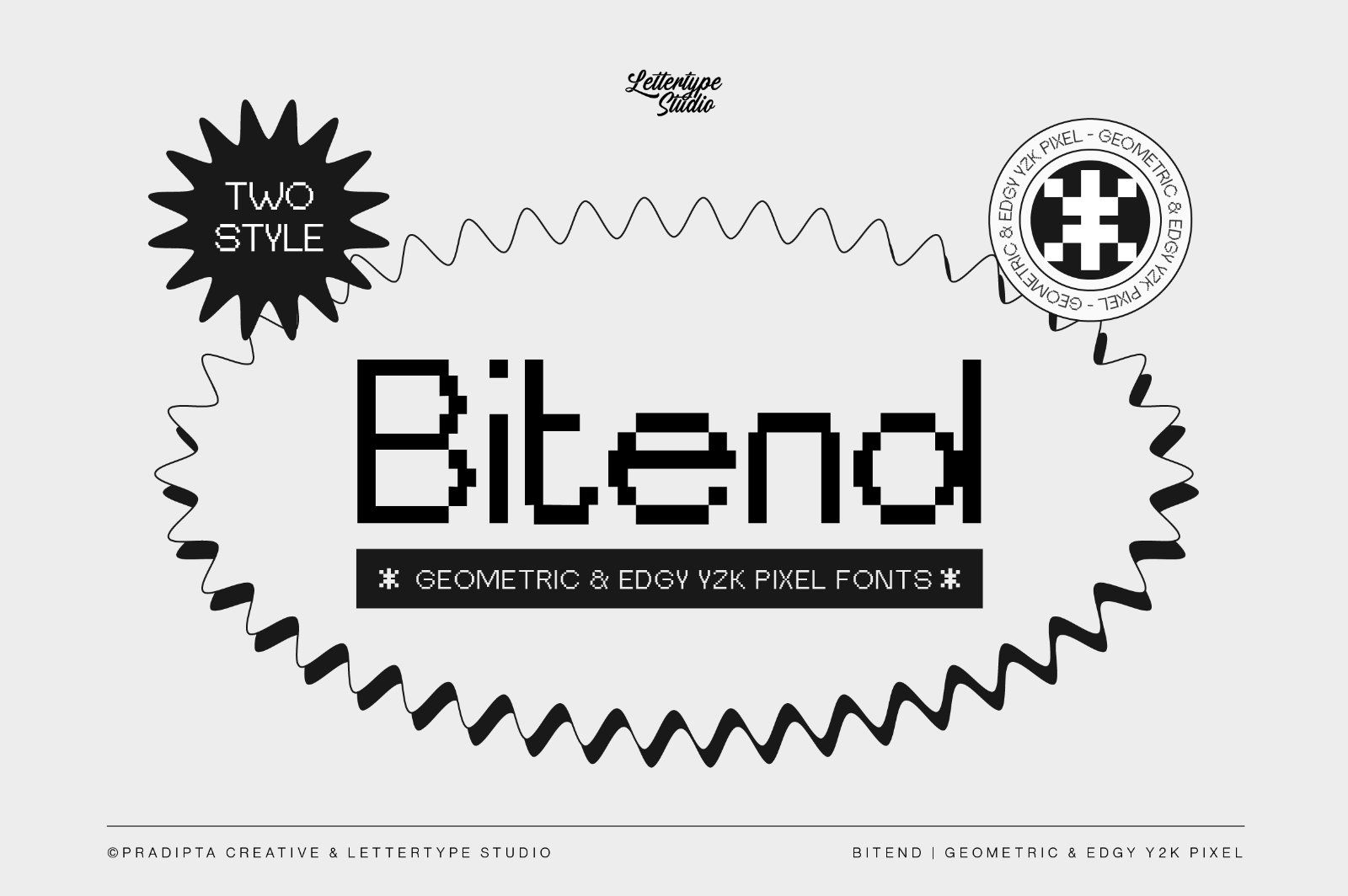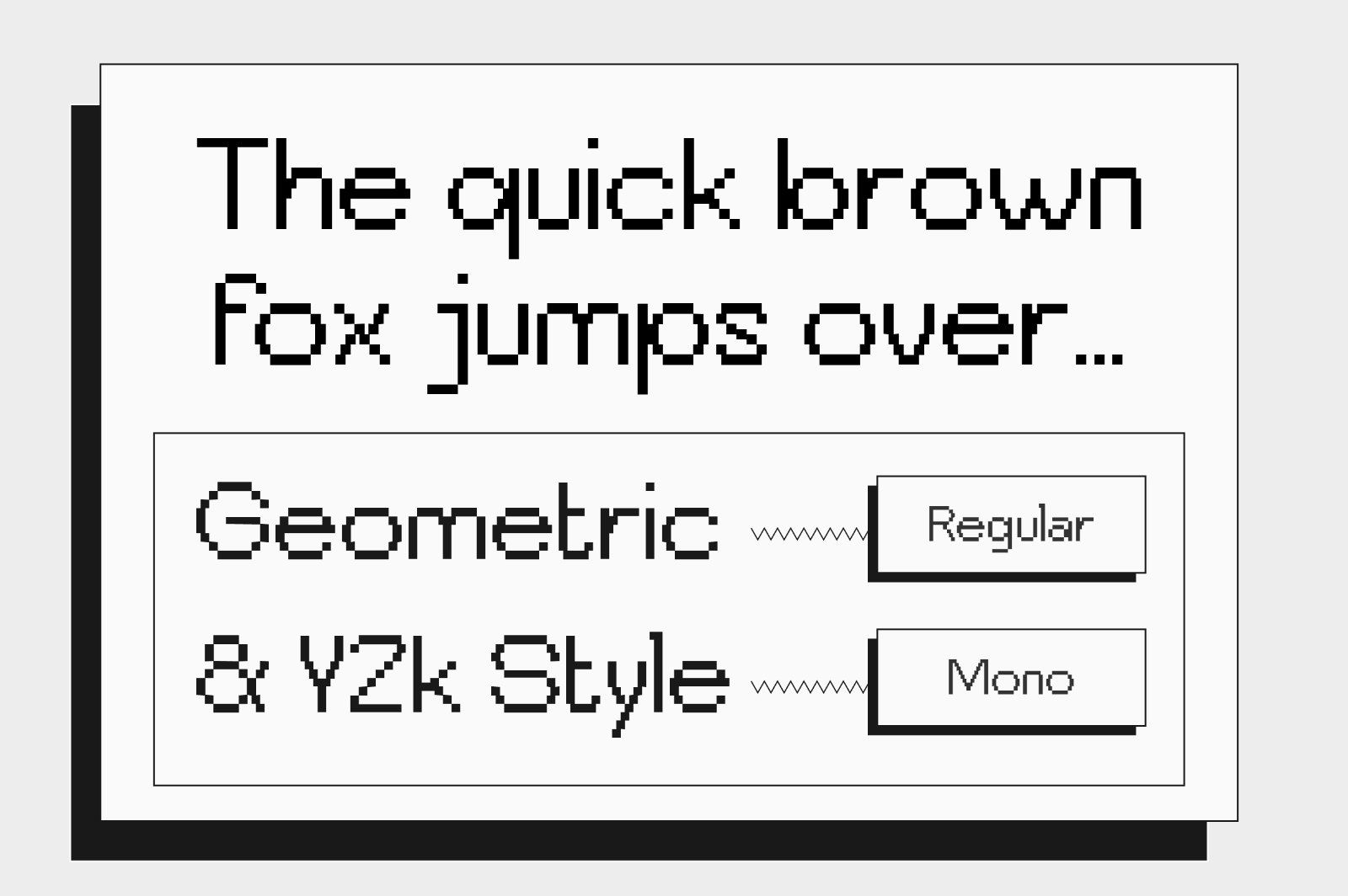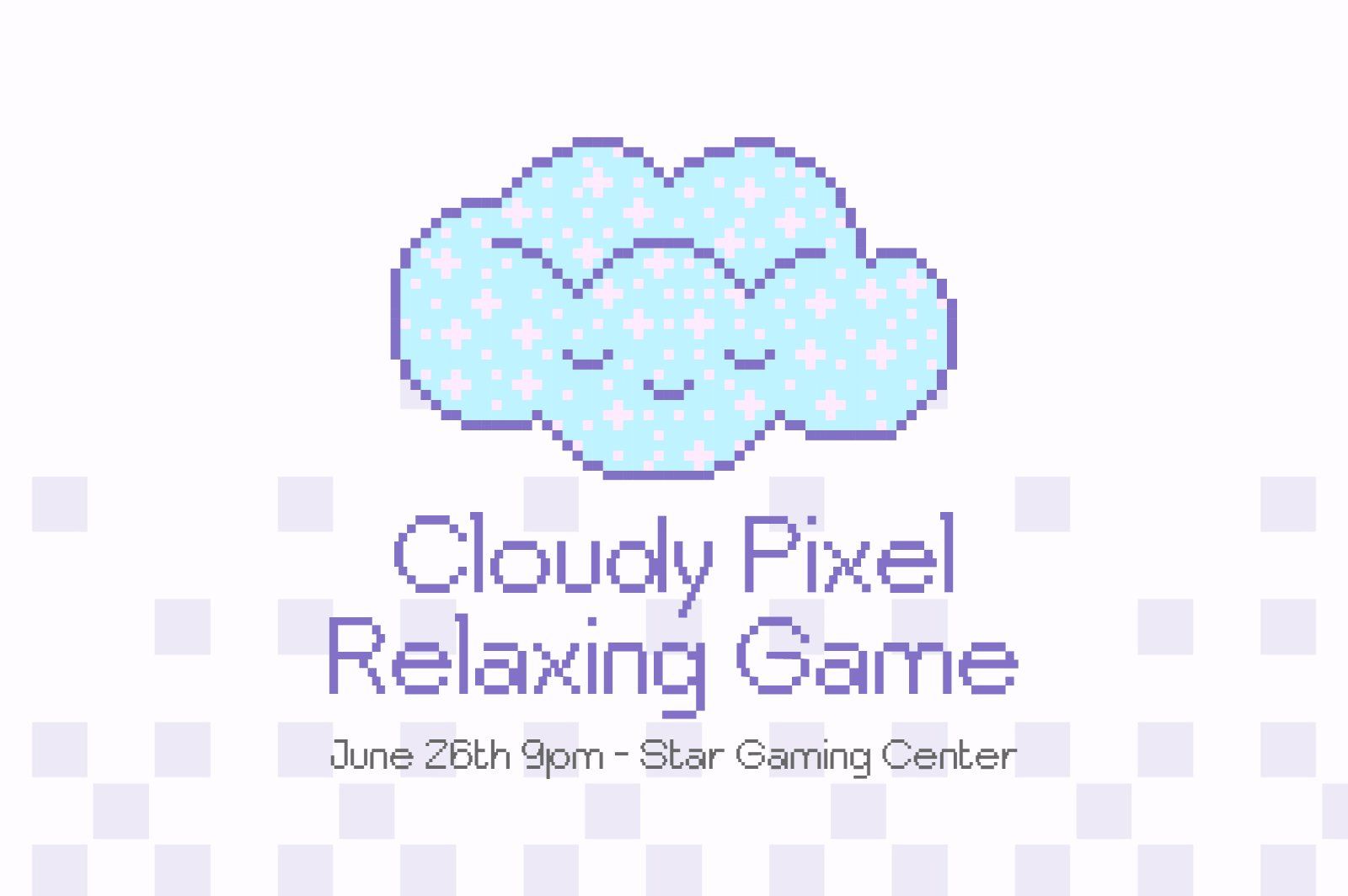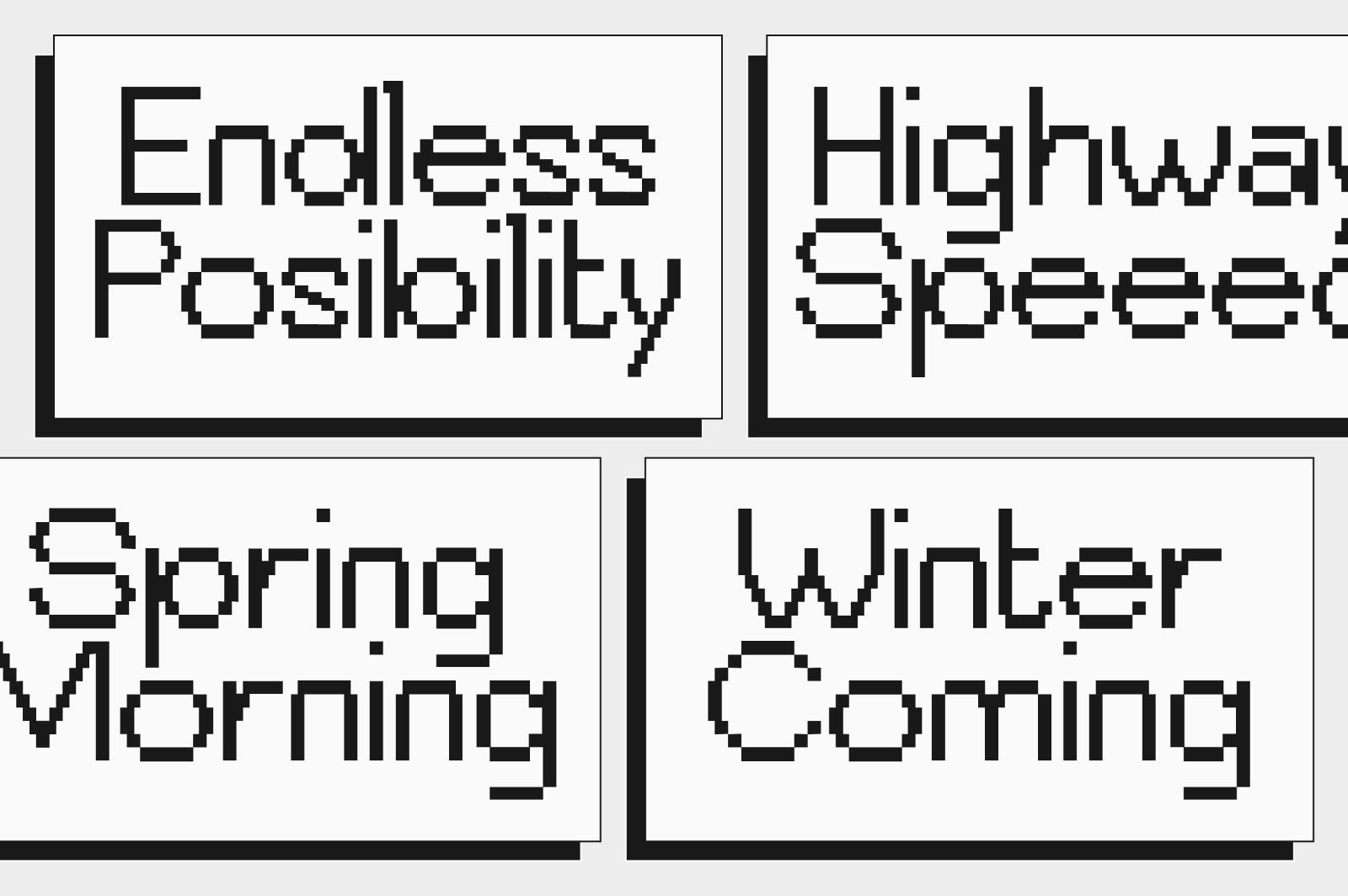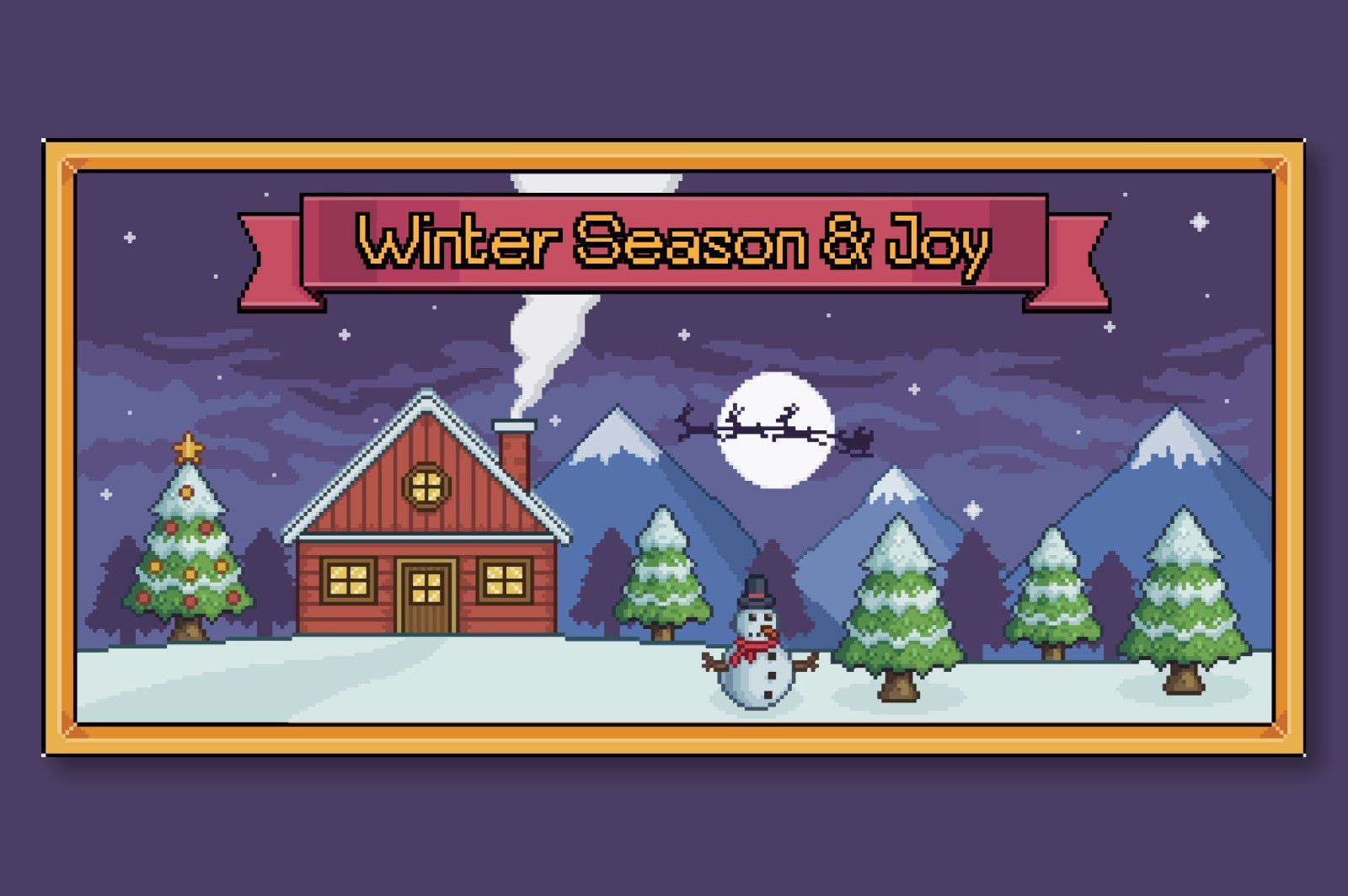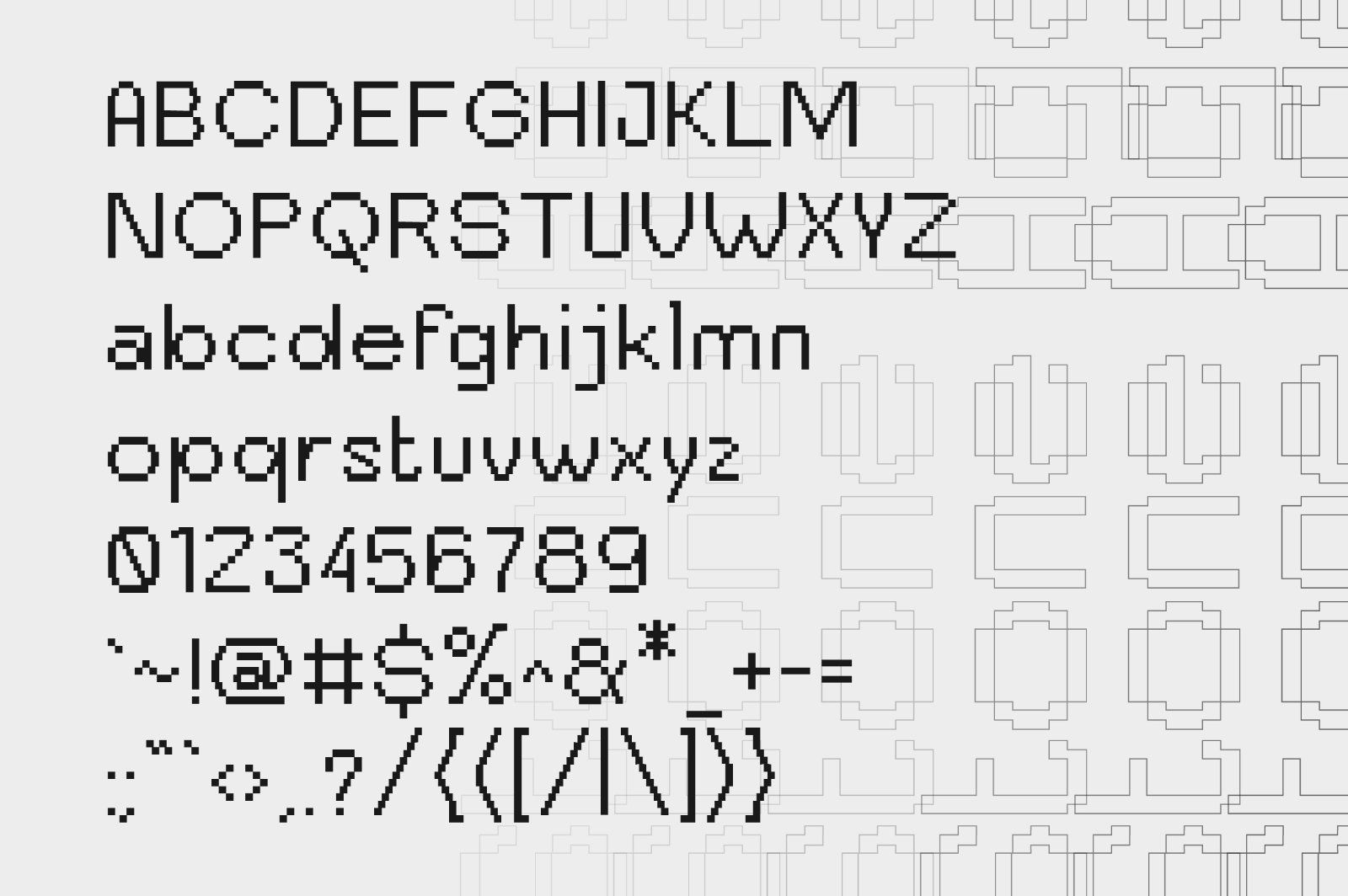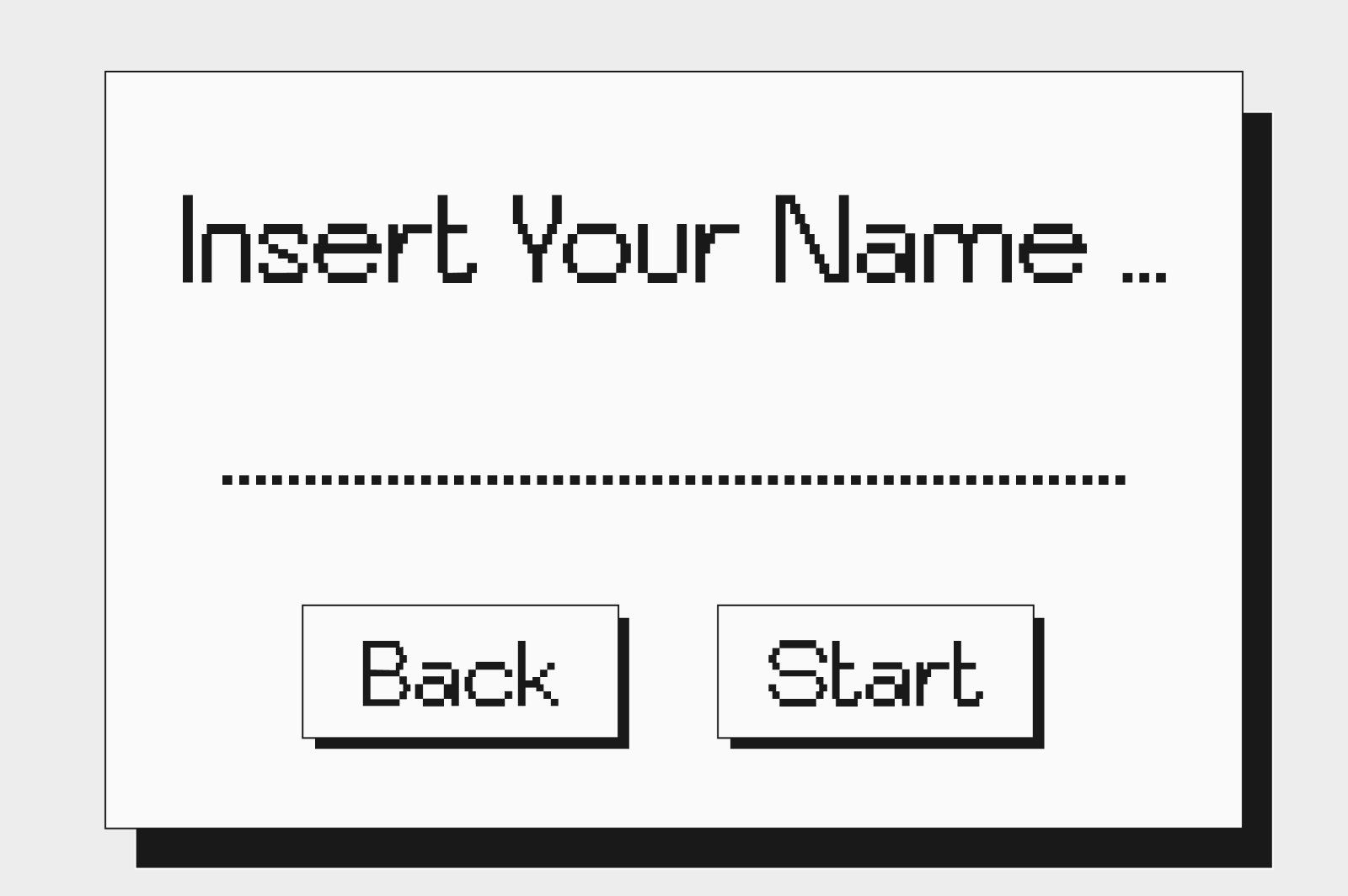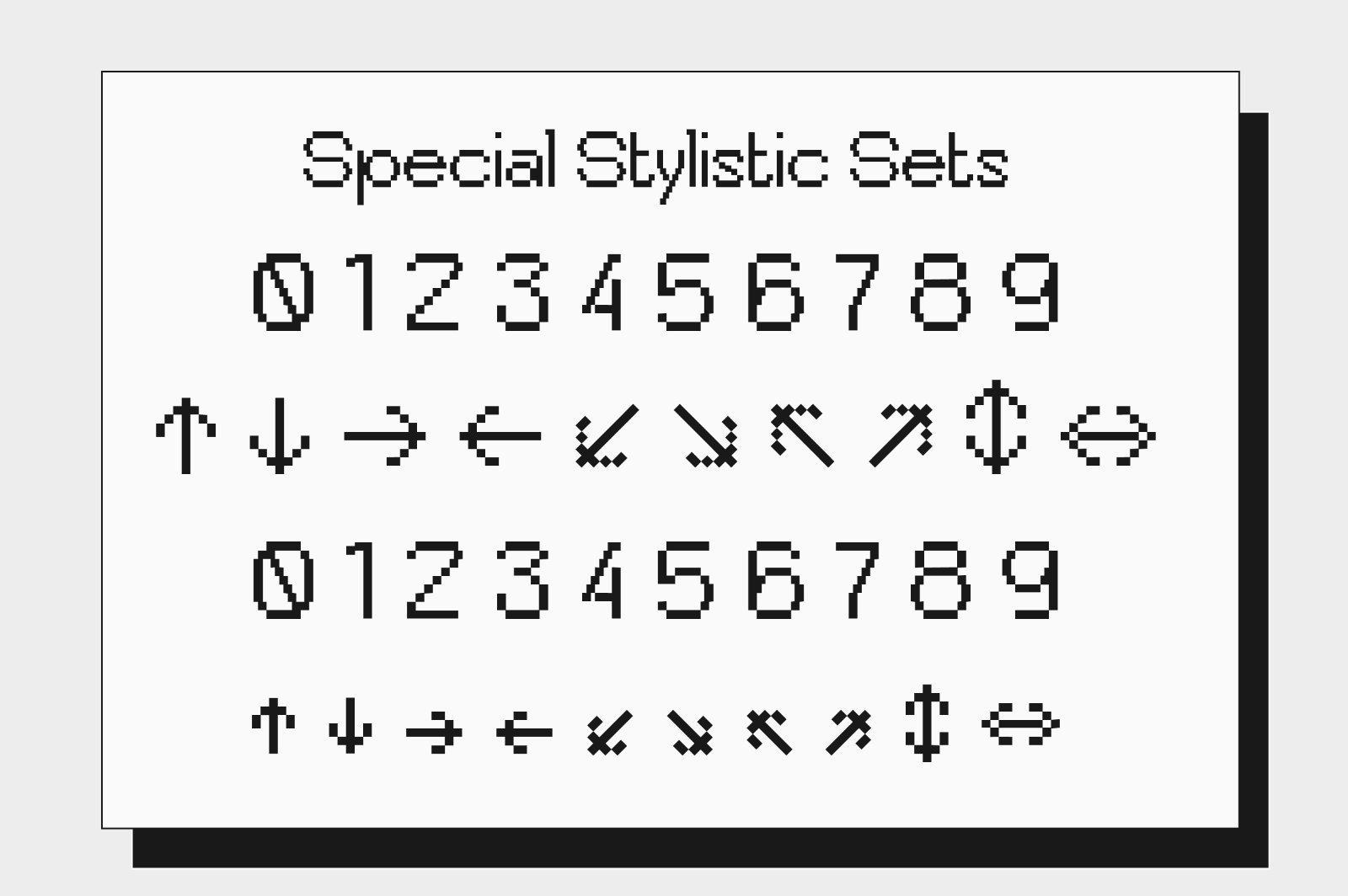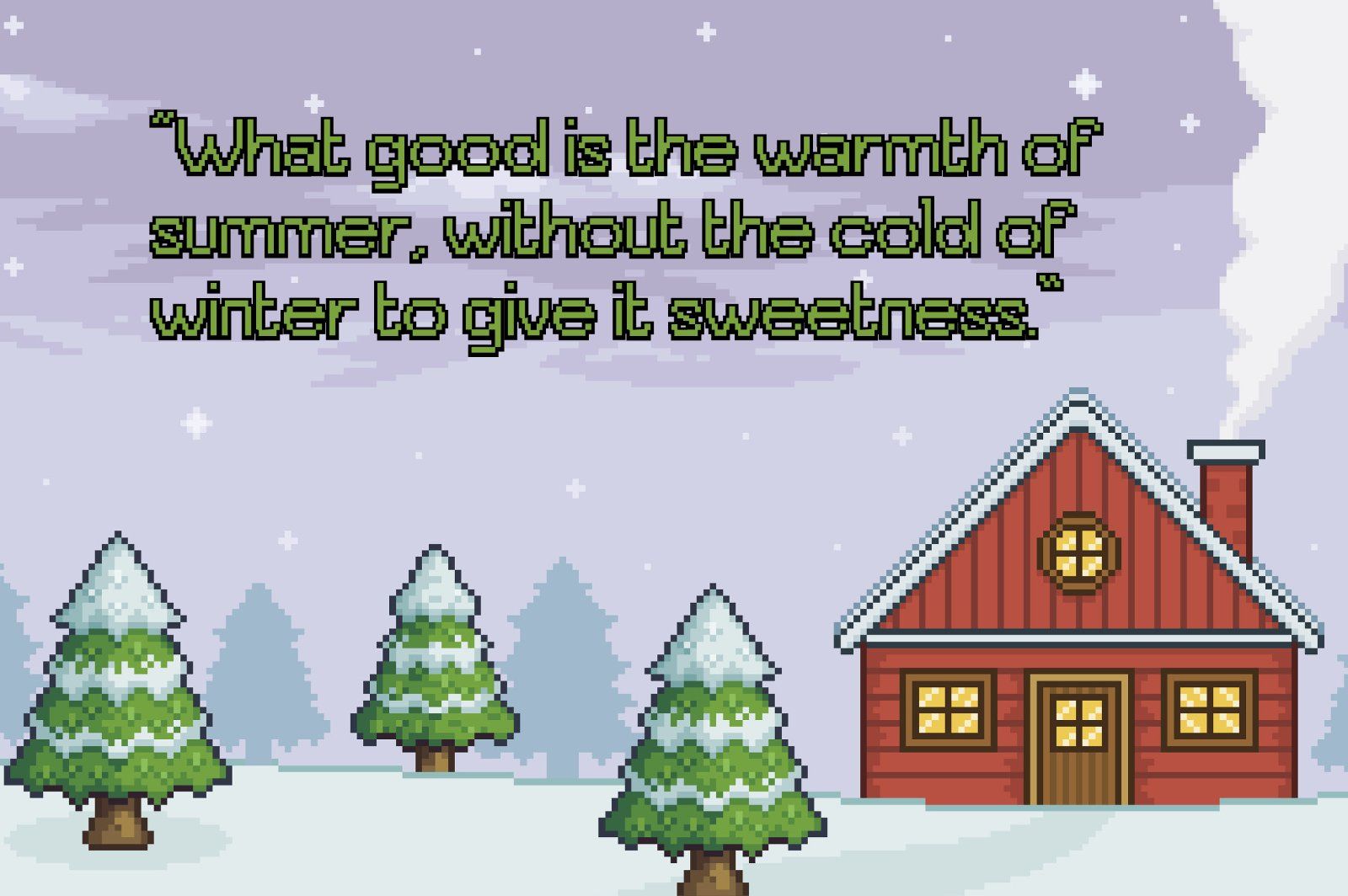
Bitend is a Geometric, edgy pixel Y2K font that combines nostalgic 80s and 2000s styles, perfect for bold, retro-inspired designs. These versatile fonts, ideal for headlines, logos, pixel games, 8-bit game interfaces, and editorial use, bring a playful yet impactful touch to any project.
Bitend Font, offering multiple styles and multilingual support, elevate your digital and print creations with a unique vintage flair. This font works in large and small sizes and includes two styles: normal and monospaced.
Bitend Comes With:
• Lowercase & Uppercase
• Alternates & Ligature
• Font Family (2 Styles)